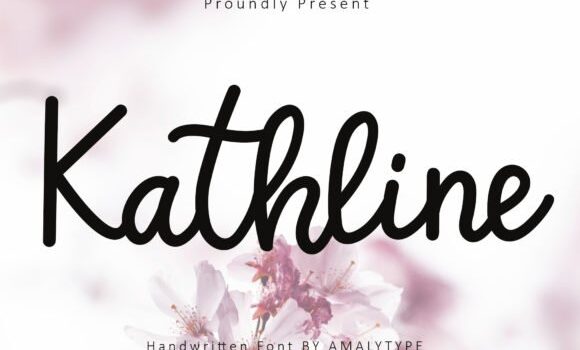
Kathline Font – Free Download Introduction to Kathline Font Kathline is a cute and simple lettered handwritten font that can be used for all chalkboard quotes or teaching material. 📸 Preview Gallery 5 images 📌 Product Name Kathline Font 👤